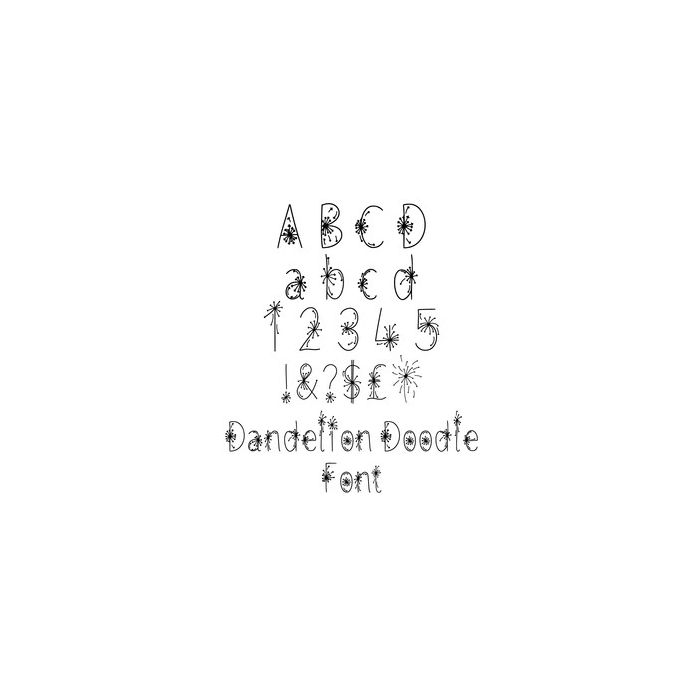
Dandelion Doodle Font. Handwritten and Hand Drawn and doodled font, includes upper and lower case letters, numbers, glyphs and doodles with dandelion wishes. For more design ideas, coordinating designs & products and inspiration, please visit my blog http://www.sarahhurleyblog.com